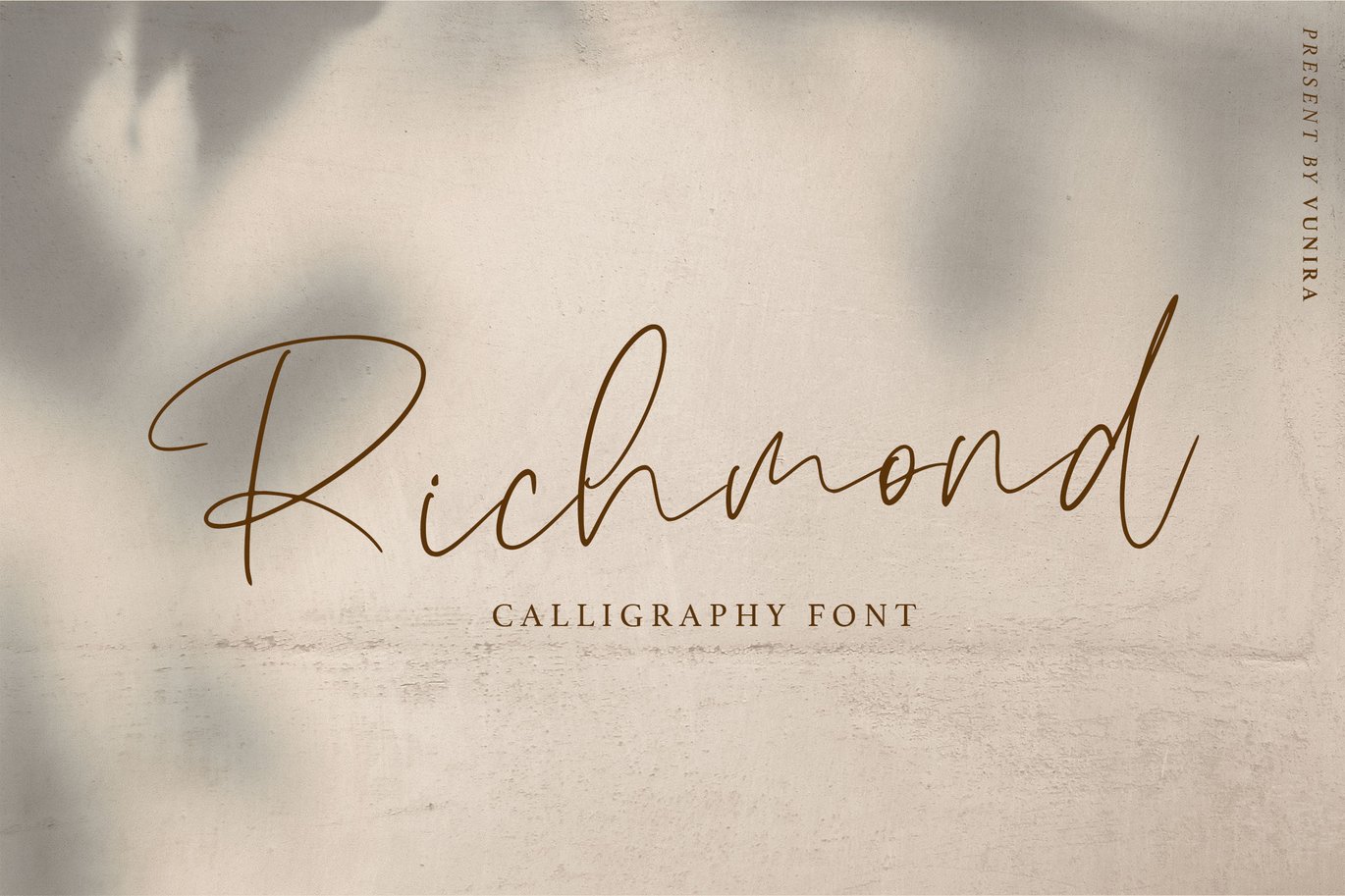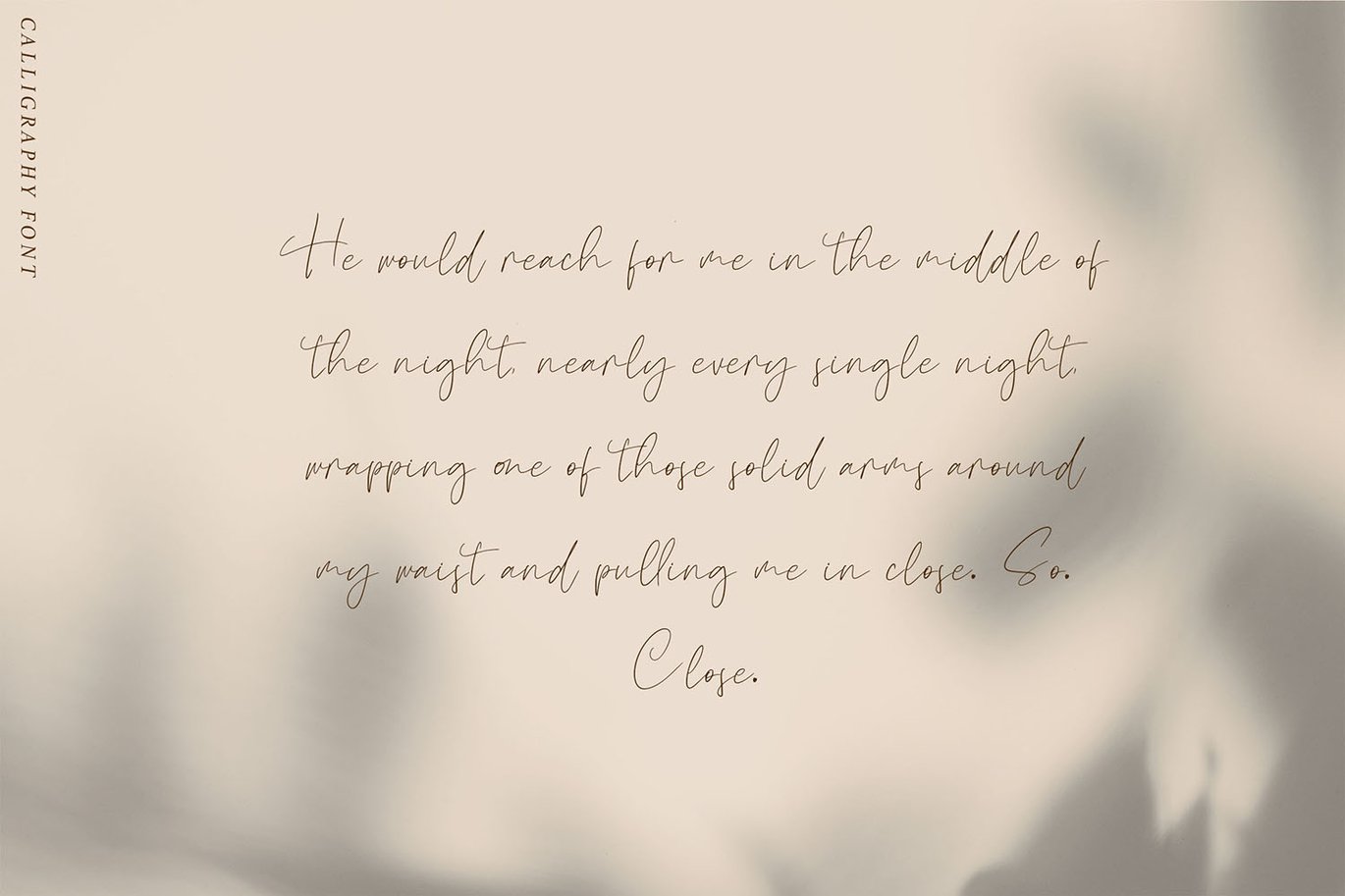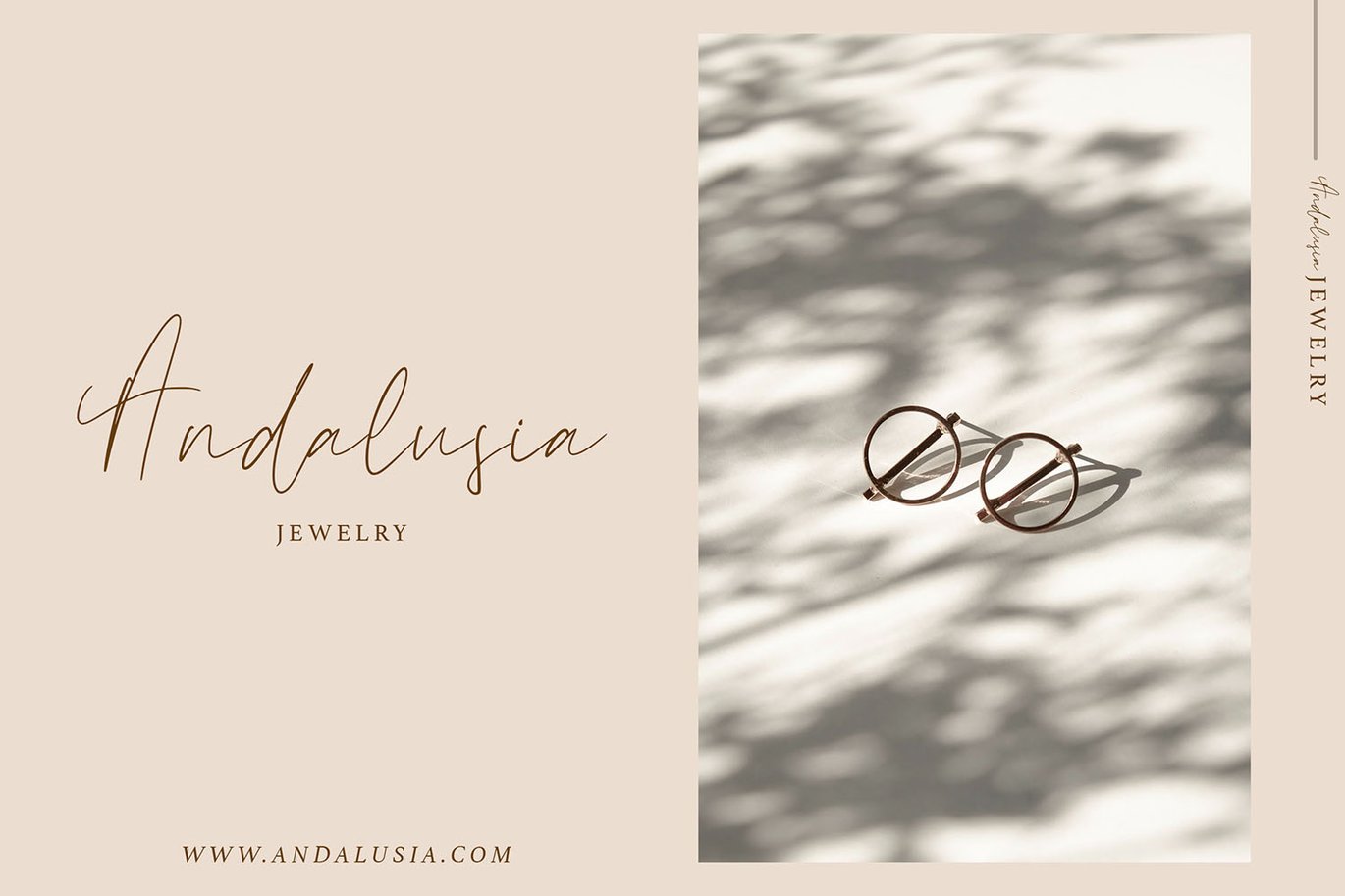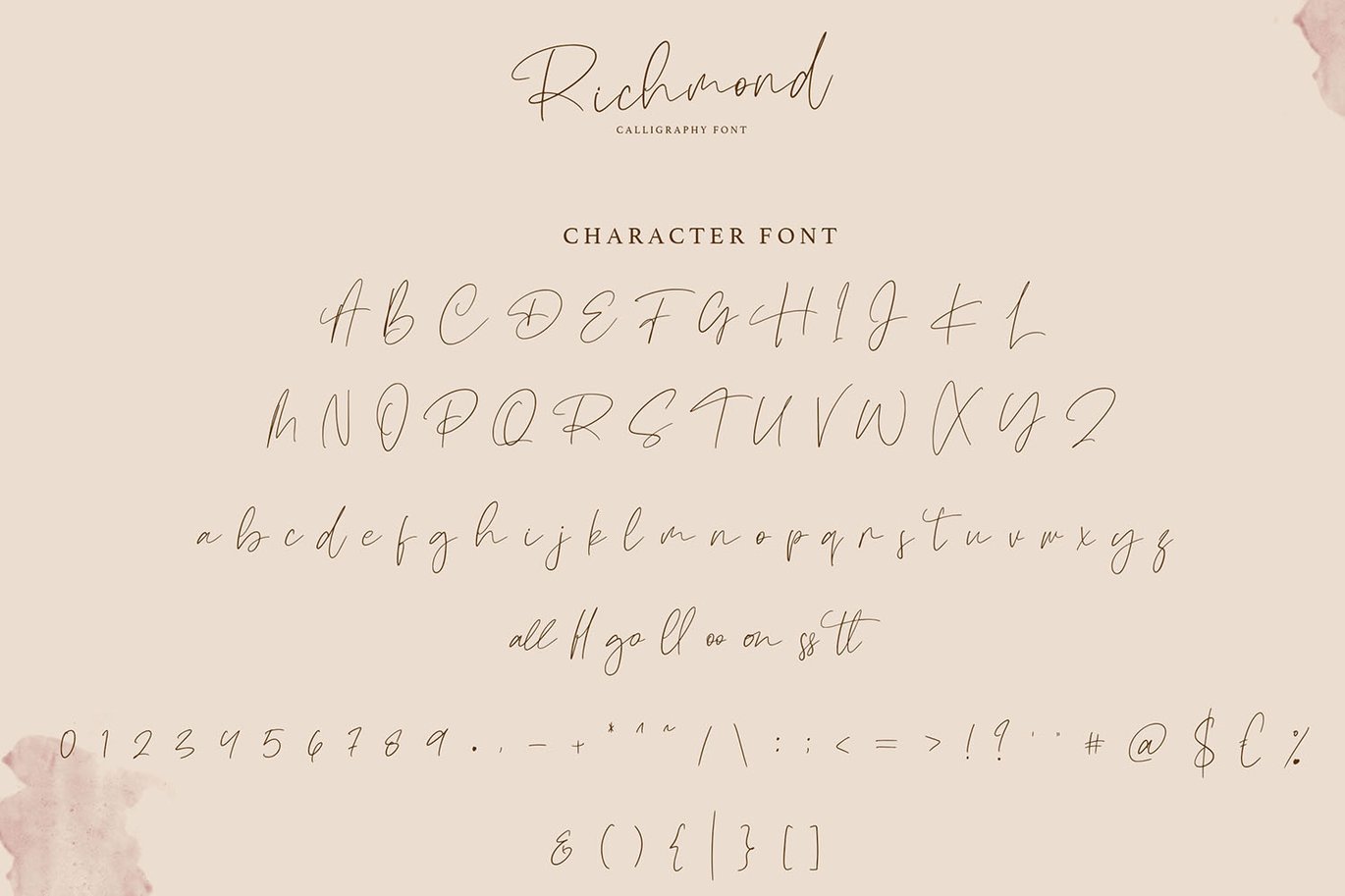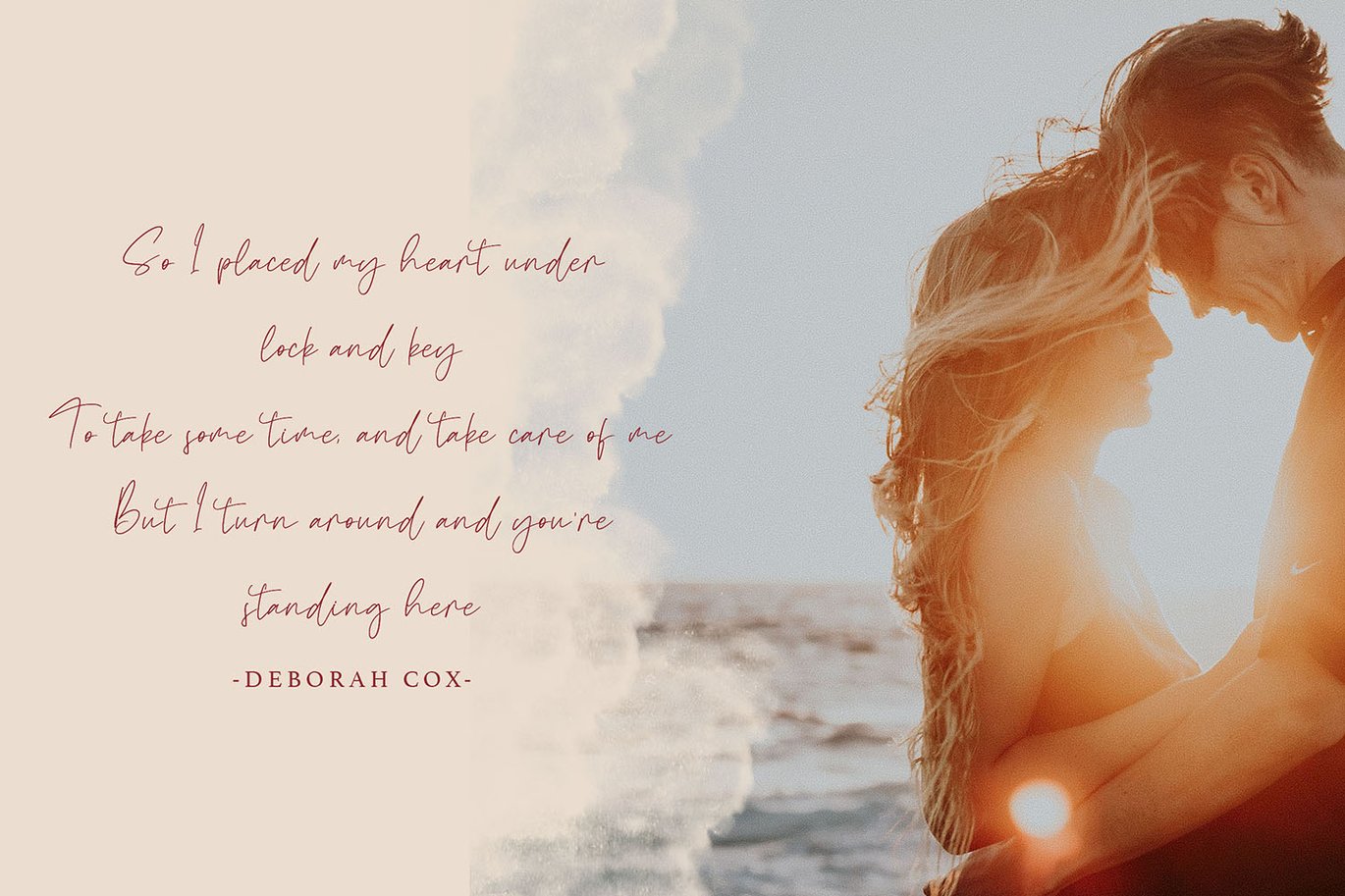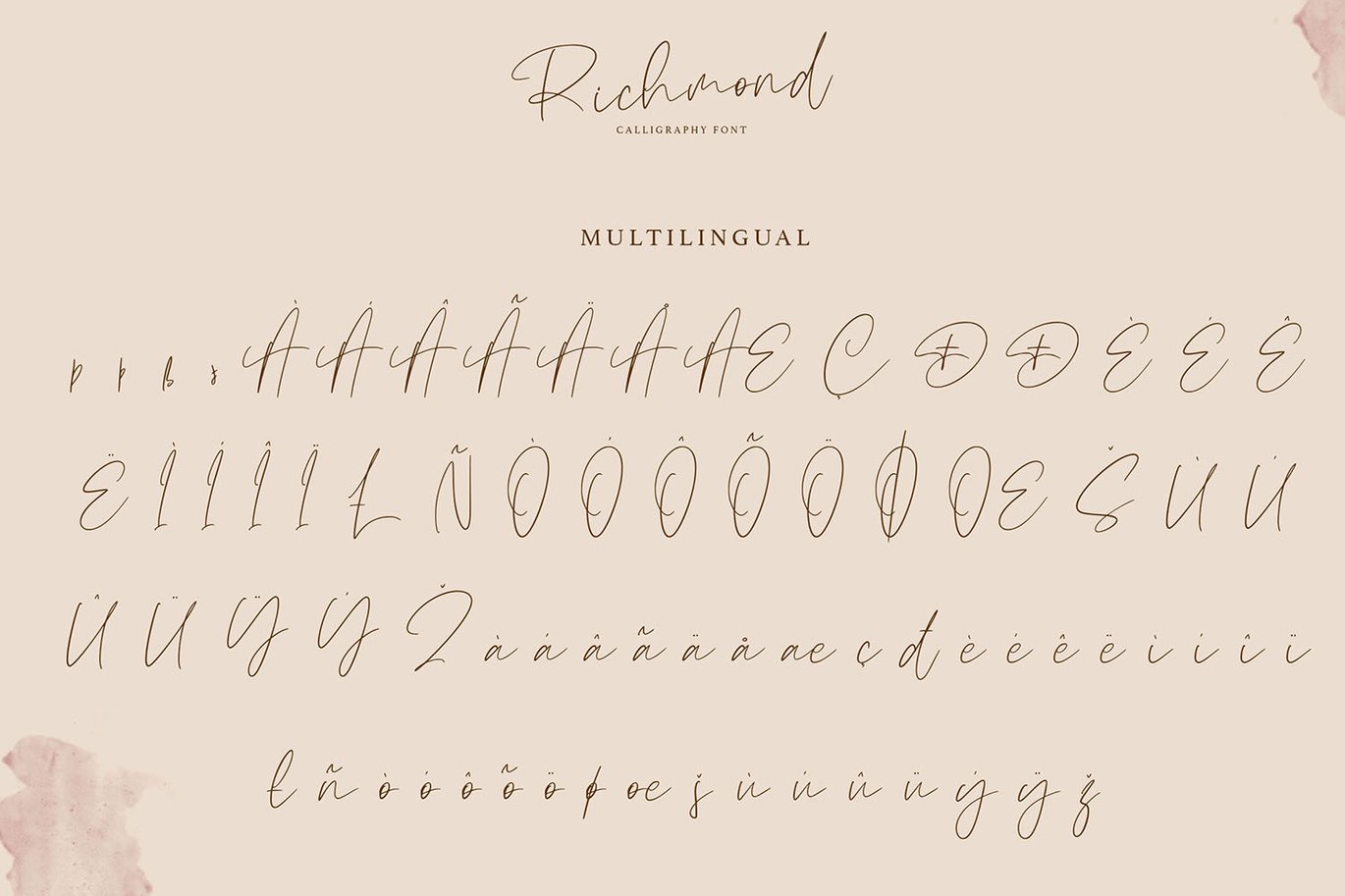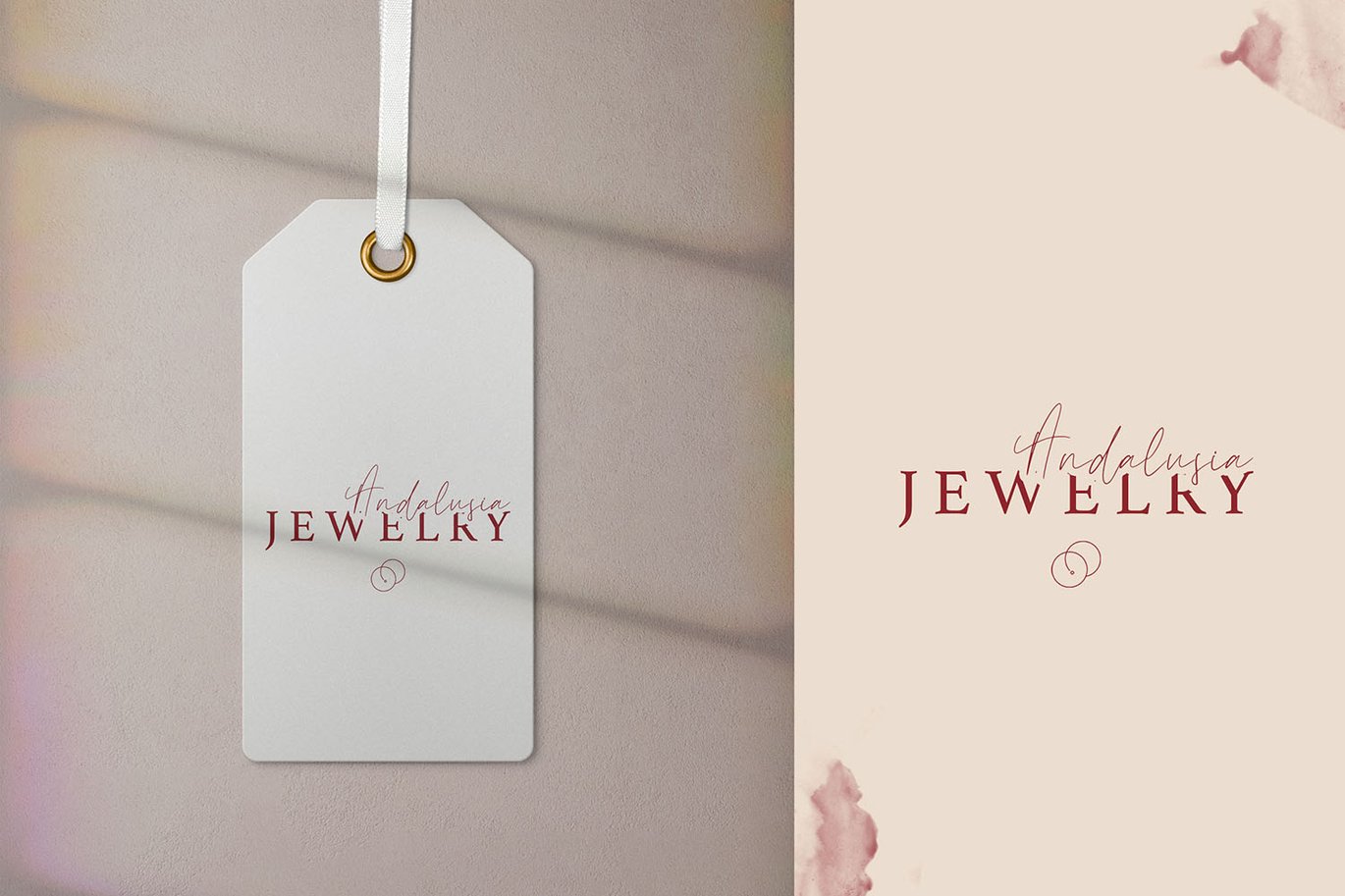
Richmond | Calligraphy Font
Richmond | Calligraphy Font with a calligraphy style, So beautiful on invitation like greeting cards, branding materials, business cards, quotes, posters, and more!